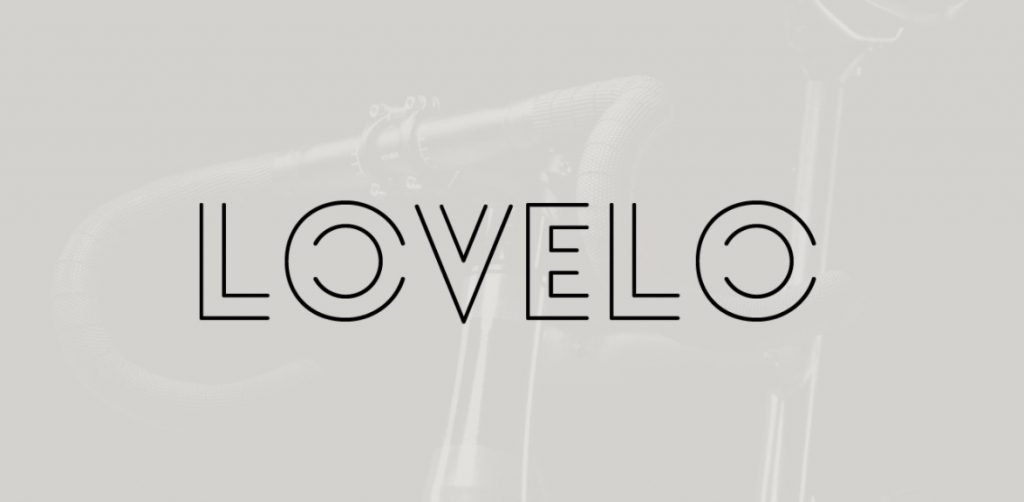
The designer of this typeface was Rinzler Design. The amazing texture of this font works great with helvetica font in the making of amazing web and graphic
Hey everyone Today we want to share with you the Lovelo Font, a sans-serif typeface that is perfect for creating stunning designs. This typeface includes three beautiful designs in its font family.
The designer of this typeface was Rinzler Design. The amazing texture of this font works great with helvetica font in the making of amazing web and graphic design projects.
Lovelo Font is used by many graphic designers to making their projects unique from others. It is one of the popular fonts and appears in the list of trending font on google. It contains a huge number of characters set and supports a wide variety of languages.
Of course you can use the Lovelo Font for your logo as well as all other graphic designs projects.
The Brandon Grotesque is very close to the Lovelo Font font.